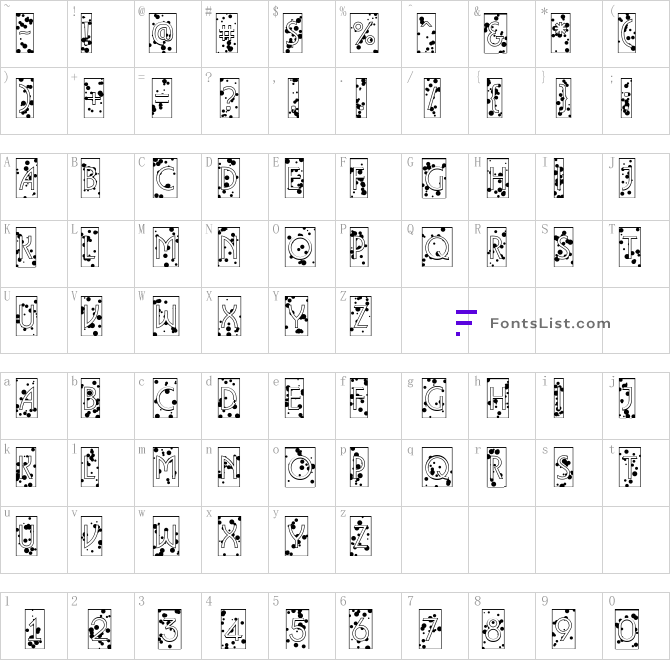
- Font Name:a_LancetCmIkbl
a_LancetCmIkbl.ttf is a very beautiful artistic font, a_LancetCmIkbl.ttf is widely used in the design and printing of various books and pictures,a_LancetCmIkbl.ttf has a strong visual impact,a_LancetCmIkbl.ttf is a commonly used font in newspapers, magazines and books, and is used in posters, e-commerce Poster design, store design, logo design, font design and other fields.a_LancetCmIkbl.